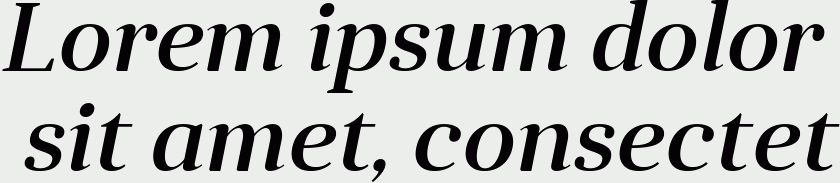
Anglecia Pro Title
/ Anglecia Pro Title Medium Italic
Anglecia Pro is an exquisite and versatile system of three transitional serif typefaces designed to work together in editorial design. Sharing the same skeleton, vertical axis, and trapezoidal uncurved serifs, each of these faces bears different key dimensions and different contrast typical for three different type epochs.
Anglecia Pro Title incorporates proportions of familiar transitional serif typefaces but exposes higher-than-average vertical contrast which makes it useful for setting captions, pull quotes or general purpose text in sizes of 12 pt and above.
Altogether these three typefaces form 36 styles – each supporting numerous Latin-based languages as well as major Cyrillic languages. In roman styles the Cyrillic script comes in two flavours accessible via OpenType alternates – to choose either more traditional and curvy (default) or more formal and rigid type texture. Also, each style is packed with OpenType features: ligatures, small caps, six sets of digits, superiors and inferiors, fractions, ordinals, and respective punctuation varieties including all-cap punctuation. There are also language-specific alternates for Polish kreska, Romanian Ș/ș, and correct small-cap versions for Turkish/Azerbaijani i/ı.
Anglecia Pro Title incorporates proportions of familiar transitional serif typefaces but exposes higher-than-average vertical contrast which makes it useful for setting captions, pull quotes or general purpose text in sizes of 12 pt and above.
Altogether these three typefaces form 36 styles – each supporting numerous Latin-based languages as well as major Cyrillic languages. In roman styles the Cyrillic script comes in two flavours accessible via OpenType alternates – to choose either more traditional and curvy (default) or more formal and rigid type texture. Also, each style is packed with OpenType features: ligatures, small caps, six sets of digits, superiors and inferiors, fractions, ordinals, and respective punctuation varieties including all-cap punctuation. There are also language-specific alternates for Polish kreska, Romanian Ș/ș, and correct small-cap versions for Turkish/Azerbaijani i/ı.